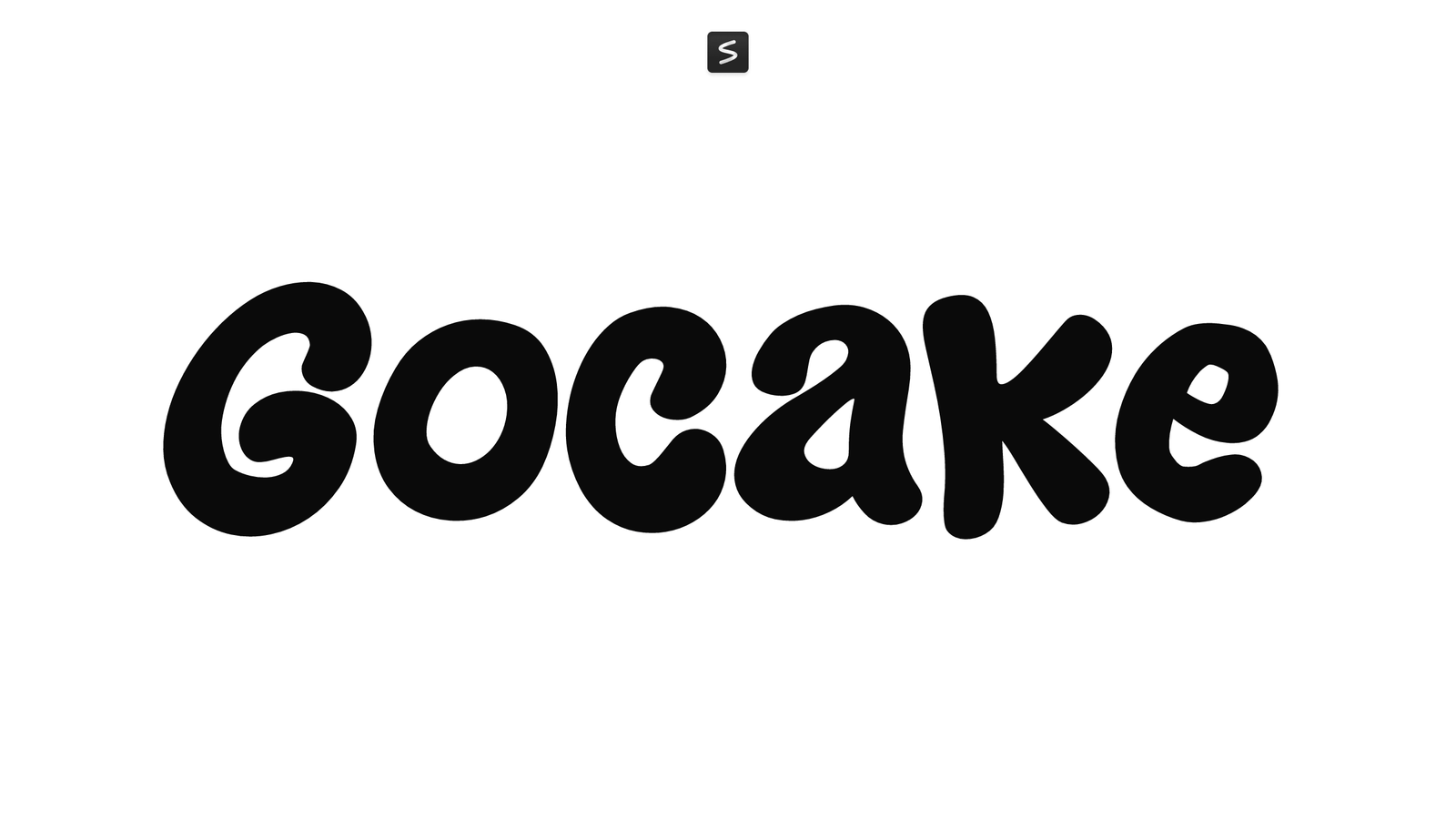
Gocake is a rounded handwriting font by Khurasan™ with soft, bouncy letterforms and a distinctly approachable character. Its chubby, informal penmanship makes it feel welcoming and casual, perfect for projects that need warmth without formality.
The font’s rounded edges and playful rhythm give it a youthful, friendly quality. It works well for children’s books, greeting cards, social media graphics, stickers, and packaging where a gentle, approachable tone matters. Its full character set supports both personal and commercial work.
Gocake is a straightforward choice when you want text that feels genuine and unguarded rather than polished or refined. It brings personality to designs aimed at younger audiences or any project that benefits from a lighter, more human touch.